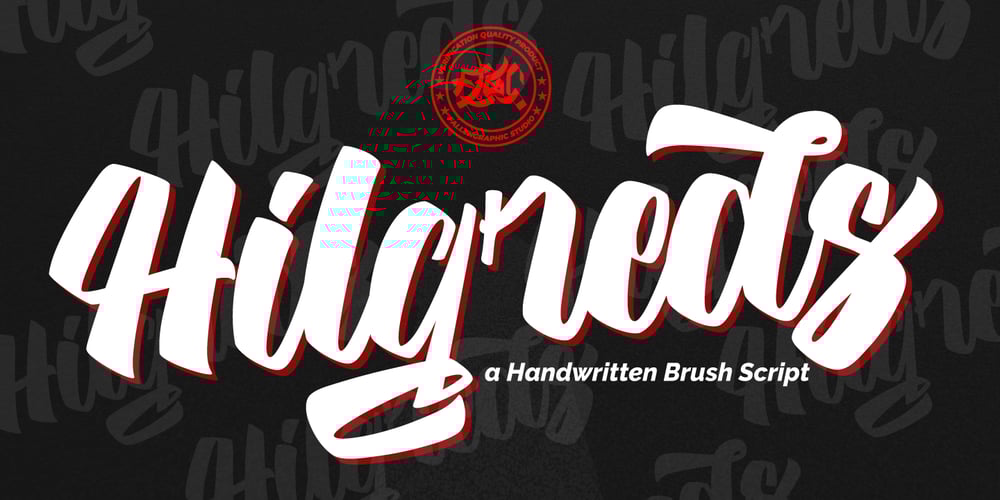
Hilgreds Script
Hilgreds Script font
Hilgreds Script Font Family was designed by Vava Aryanto and published by FallenGraphic. Hilgreds Script contains 1 styles and family package options. Hilgreds Script is an amazing handwritten font and includes several alternates. This font will make your design more beautiful and powerful, and is suitable for any design including branding, quotes and more.